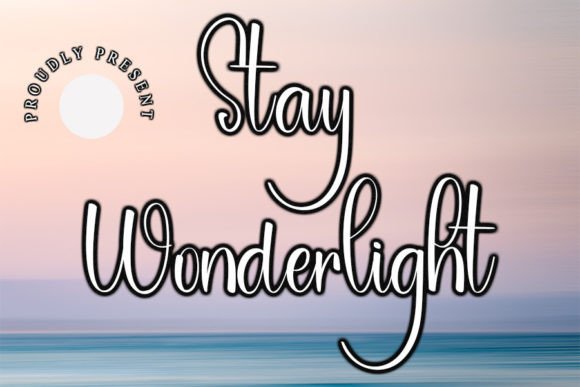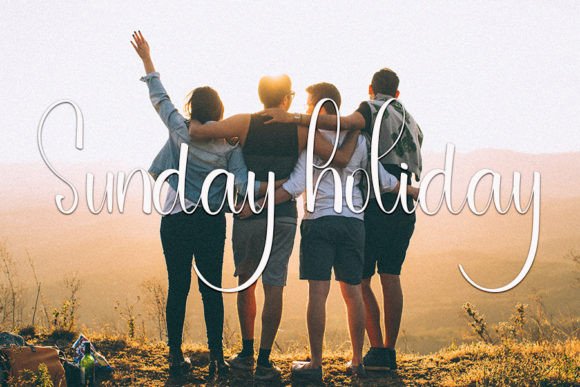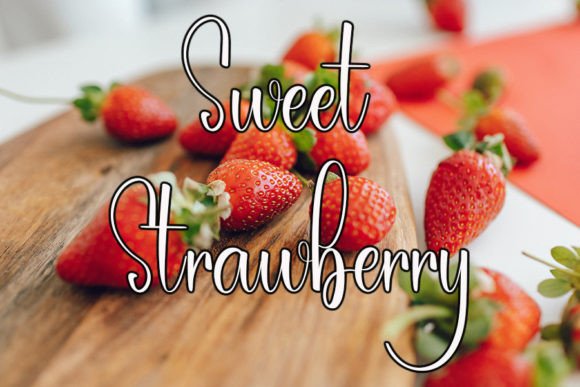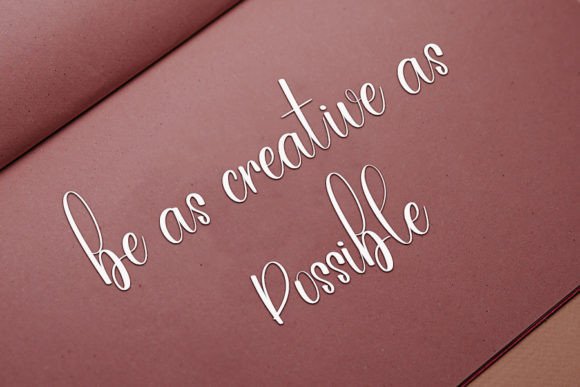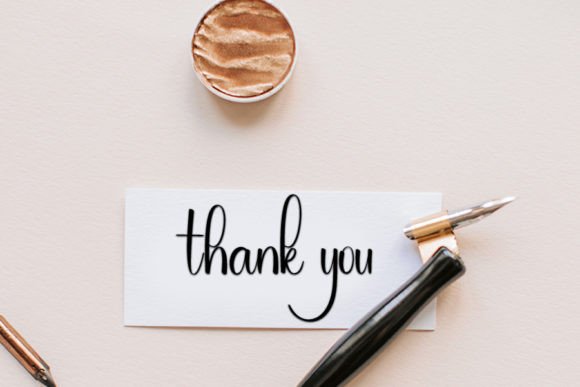
Stay Wonderlight Font
About Stay Wonderlight Font
Stay Wonderlight is a neat and beautiful handwritten font that exudes an elegant touch, making it perfect for your favorite projects. This font is characterized by its distinct and timeless style, inviting you to fall in love with its unique charm. Use Stay Wonderlight to create spectacular designs that stand out with a touch of sophistication.
The neat and beautiful nature of Stay Wonderlight makes it a versatile choice for a variety of projects. Whether you’re working on branding, invitations, stationery, or social media posts, this font adds a level of elegance to your designs.
Stay Wonderlight’s distinct and timeless style ensures that it remains relevant across different design contexts. Its handwritten aesthetic adds a personal and authentic touch, creating a visual experience that is both memorable and sophisticated.
Incorporating Stay Wonderlight into your projects is an invitation to infuse them with a sense of timeless elegance. This handwritten font becomes a reliable tool, ready to enhance the visual impact of your designs and add a touch of distinctiveness to your creative expressions.
In summary, Stay Wonderlight is more than just a font; it’s a neat and beautiful design asset that brings an elegant touch to your projects. With its distinct and timeless style, Stay Wonderlight stands ready to be the perfect companion for a variety of creative endeavors, making your designs spectacular, sophisticated, and uniquely crafted.